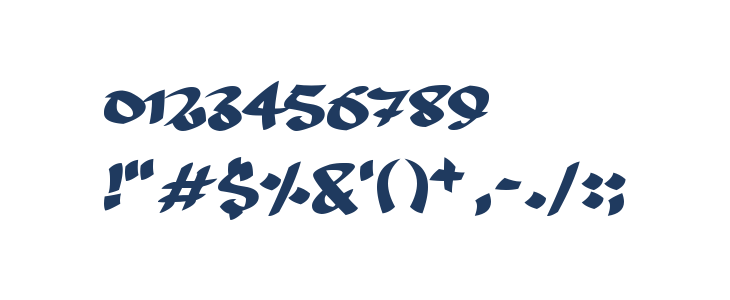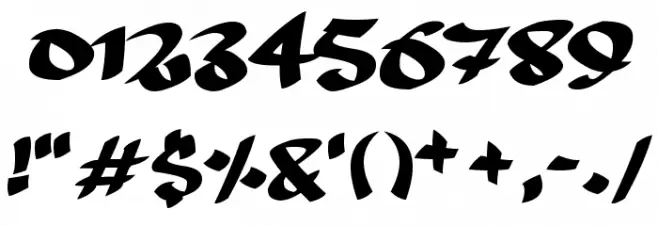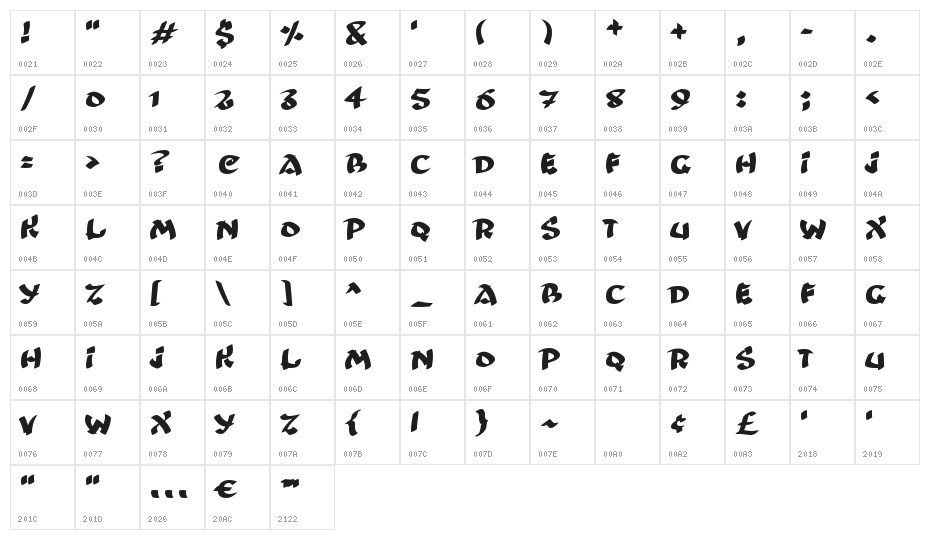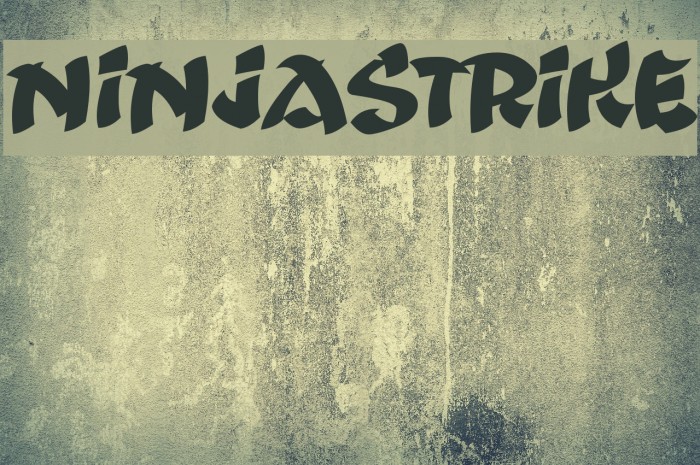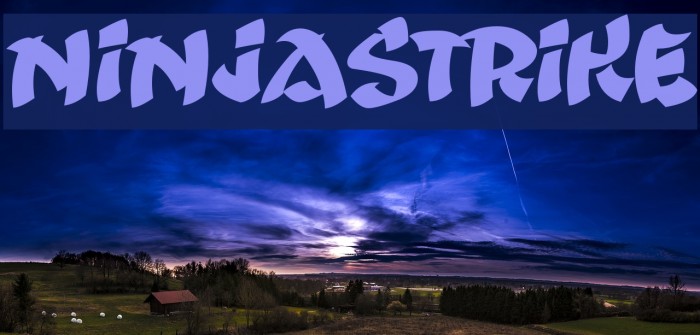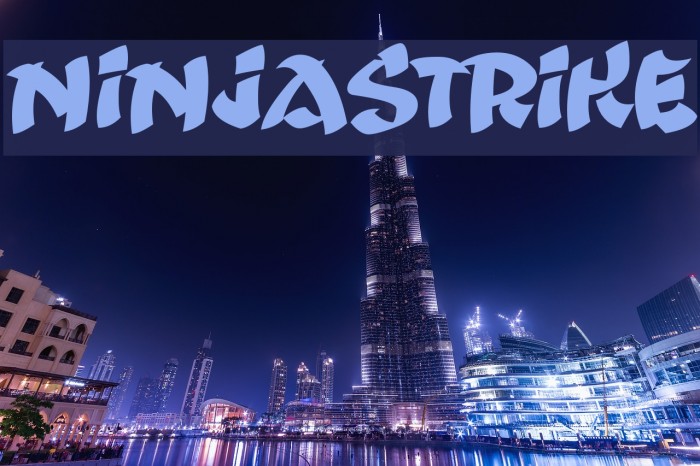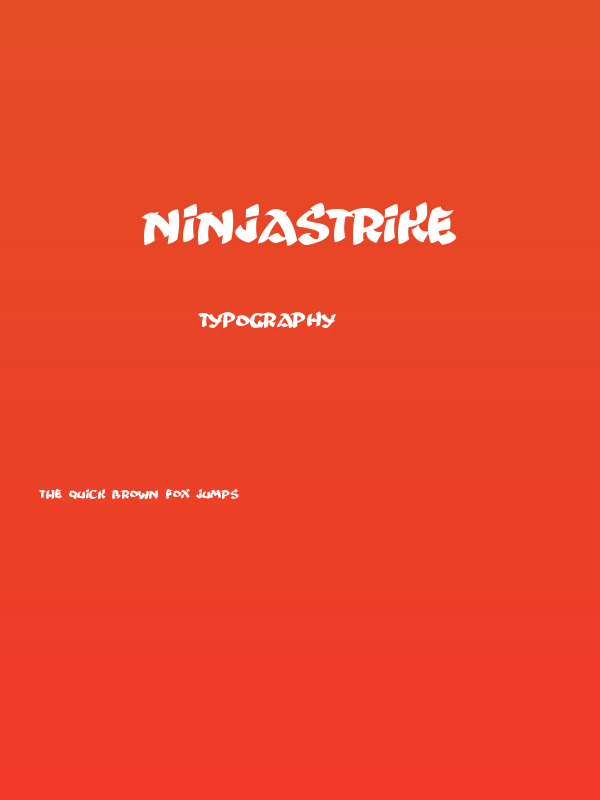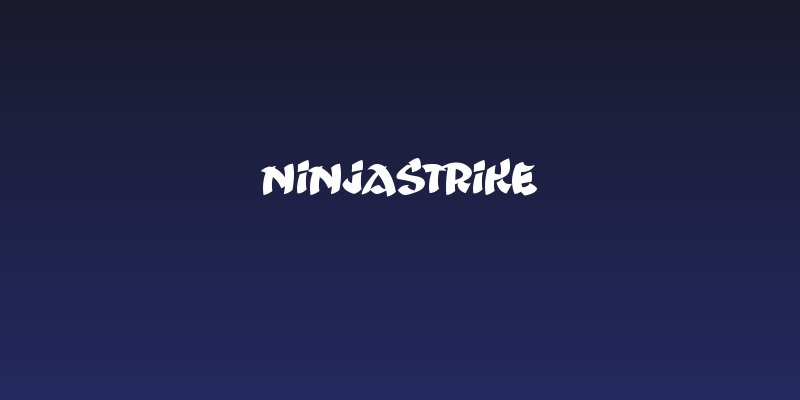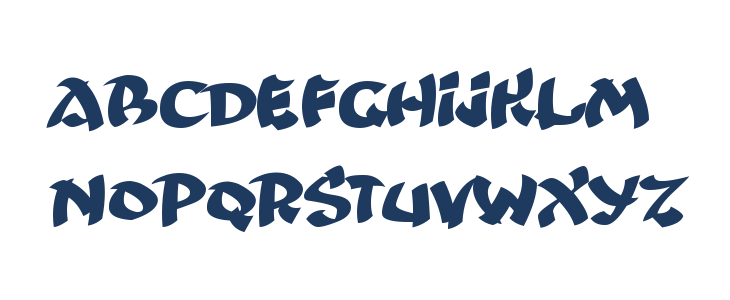
Ninjastrike Font
Ninjastrike Description
This font features a bold and dynamic style with sharp, angular edges and a strong presence. The characters are designed with a sense of movement and energy, reminiscent of brush strokes or calligraphy. The uppercase and lowercase letters maintain a consistent style, with a slightly condensed appearance that adds to the intensity of the design. Numbers and special characters are equally bold, ensuring a cohesive look across all text elements. This font's unique style makes it stand out, offering a modern twist on traditional calligraphic forms.